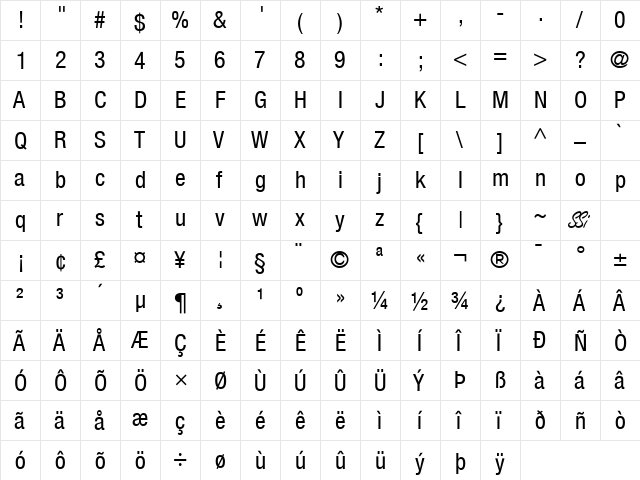
Context Reprise Condensed SSi Condensed
Design Context for Context Reprise Condensed SSi Typeface
Context Reprise Condensed SSi is a composed and adaptable typeface that performs quietly and consistently across a wide range of design contexts. Its narrow stance lets it pack a punch even in space-constrained designs.